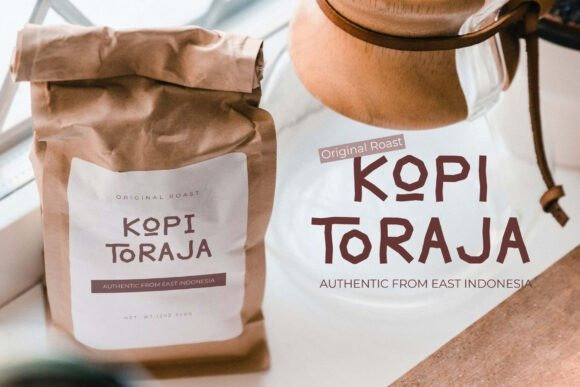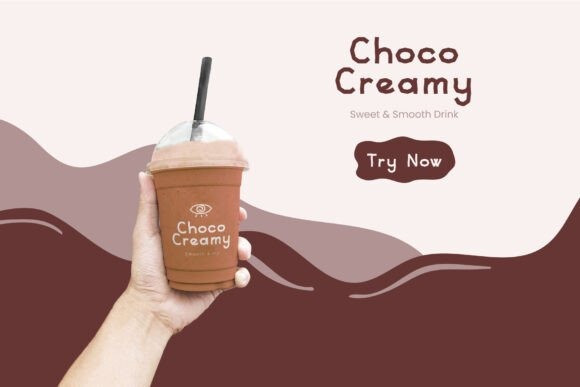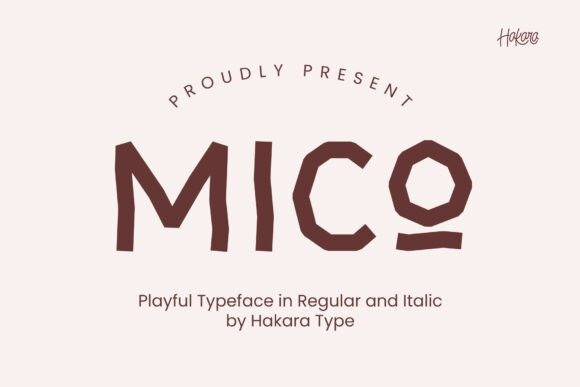
Mico Font
Mico Font is a one-of-a-kind font with a distinctive zig-zag design that exudes boldness and playfulness. Perfect for projects that need a touch of fun, it includes uppercase, lowercase, numbers, punctuation, ligatures, and multilingual support to enhance your creativity.